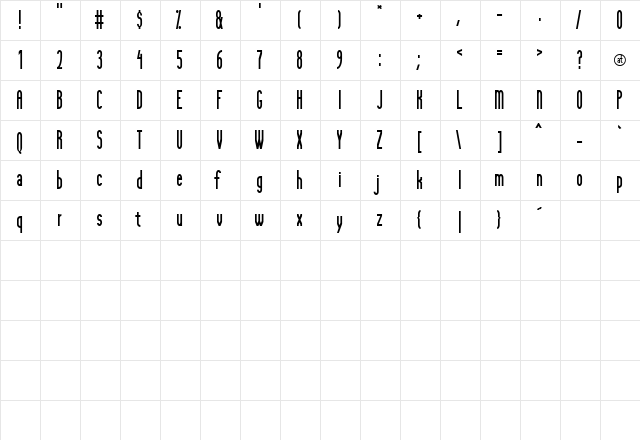
Pfeiffer Tall Regular
Design Context for Pfeiffer Tall Typeface
Pfeiffer Tall offers clean, dependable letterforms without strong stylistic allegiance, making it a practical choice for designers who need flexibility.